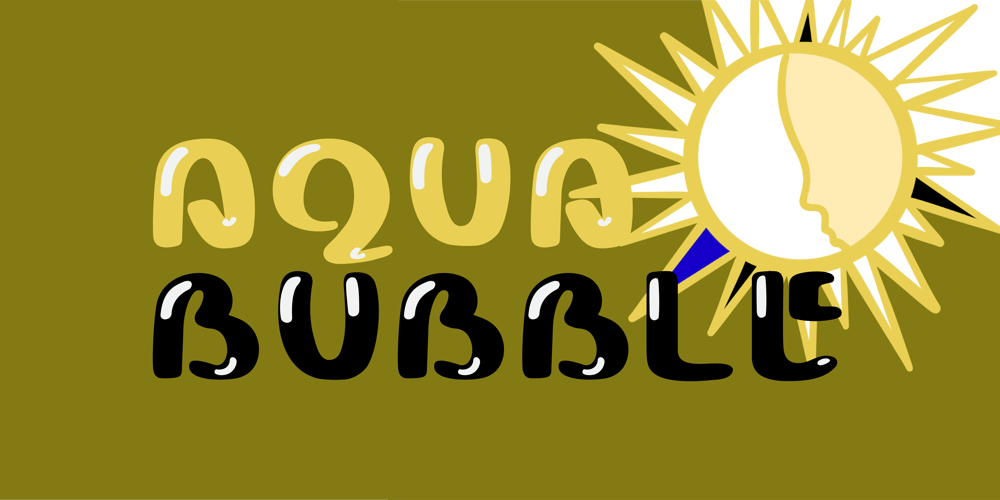
Aqua Bubble Font Family was designed by Rachel McBride and published by Rachel McBride Creative. Aqua Bubble contains 8 styles and family package options. Aquarian Bubble is a stackable font that’s perfect for any project that needs quirk, youth, or fun without being illegible or exaggeratively dramatic. It comes with eight styles to suit any aesthetic or occasion.With a glyph count of 433, Aquarian Bubble supports most western languages.